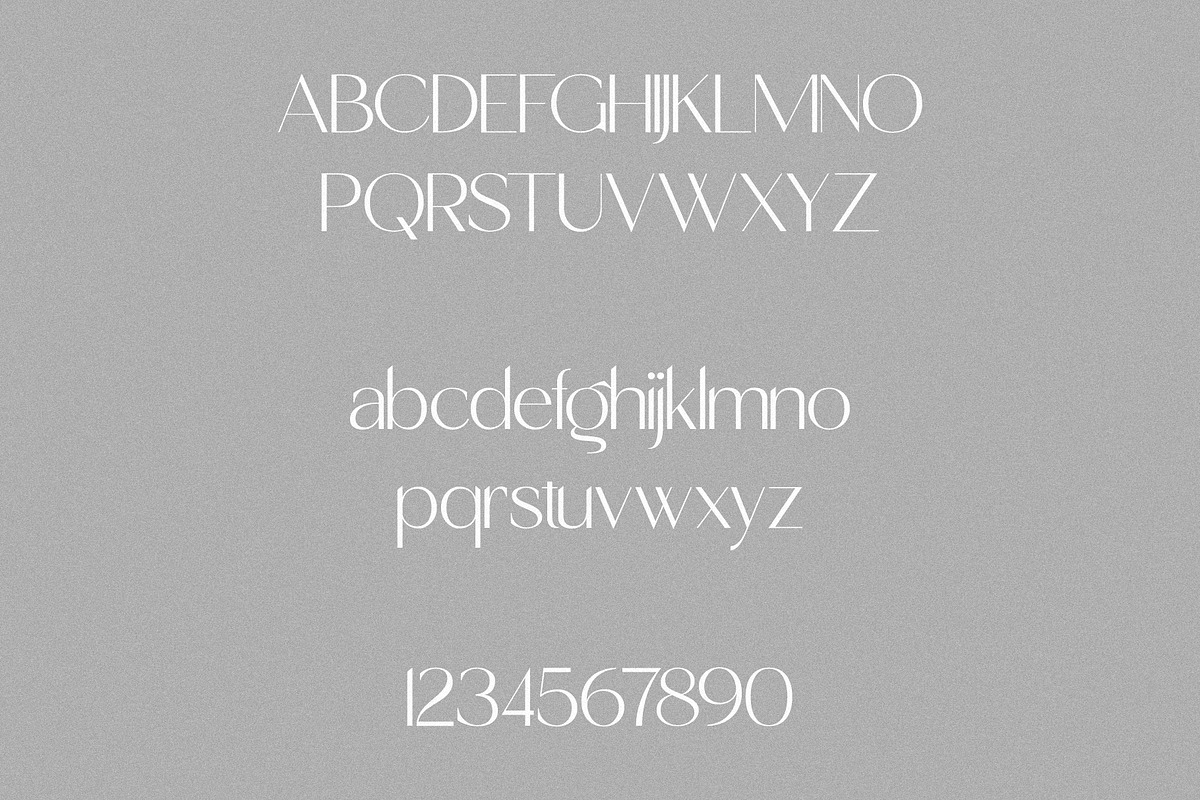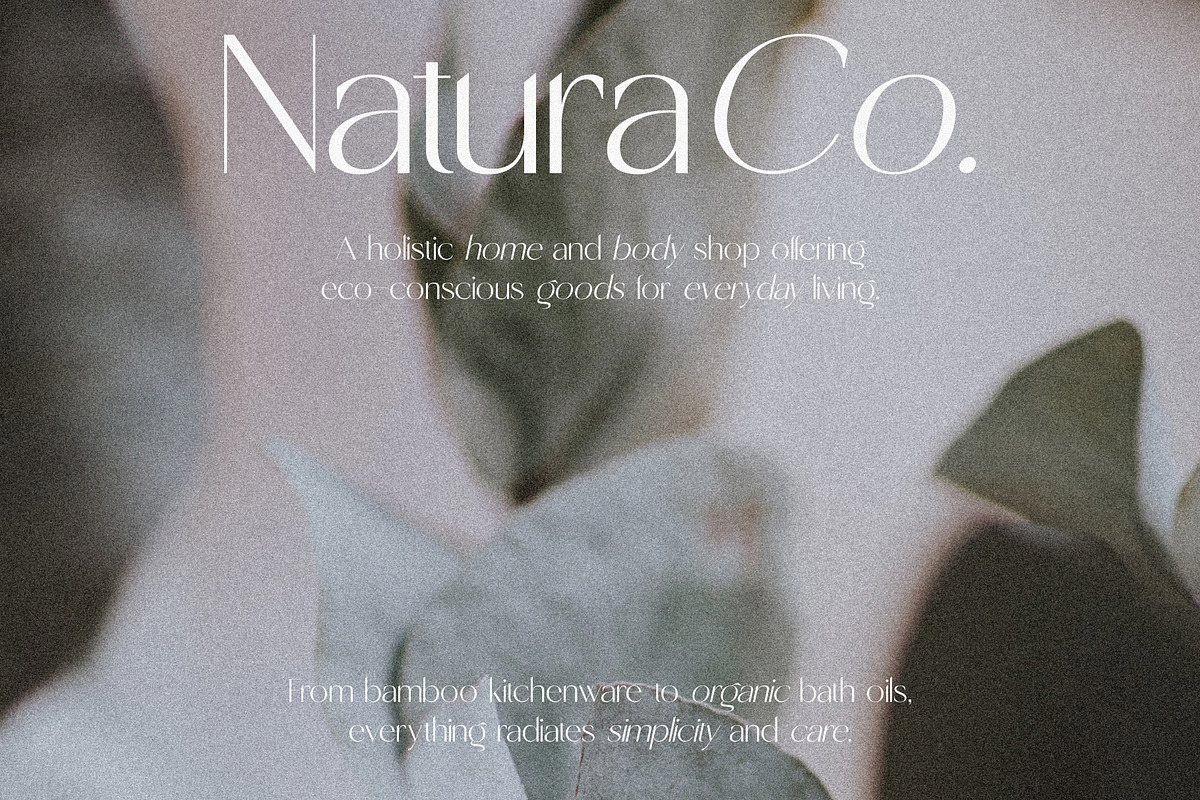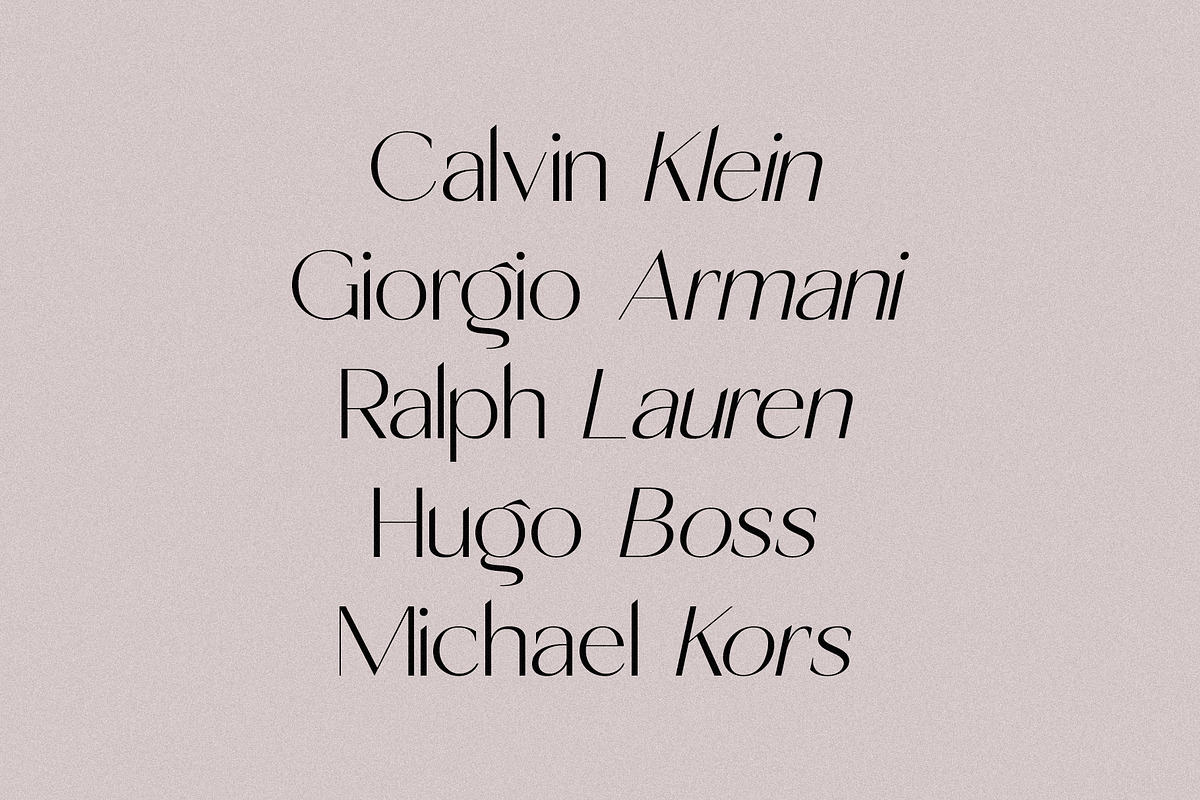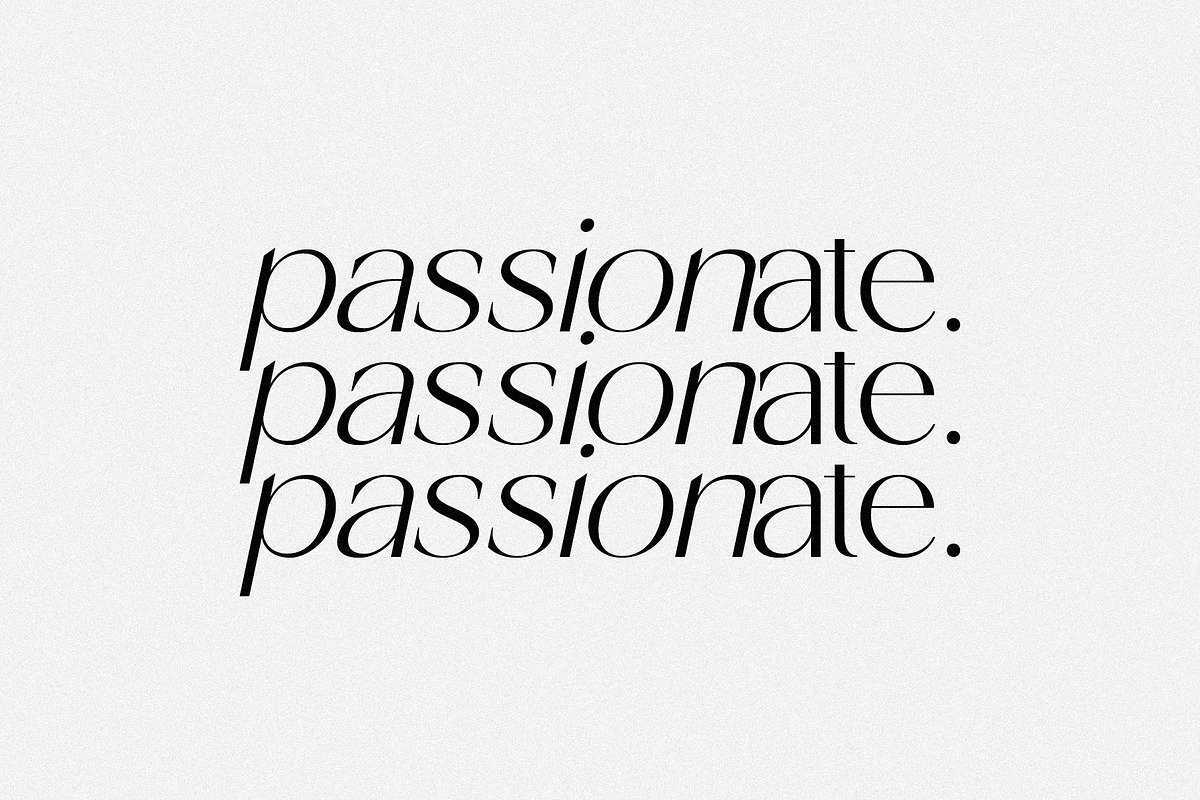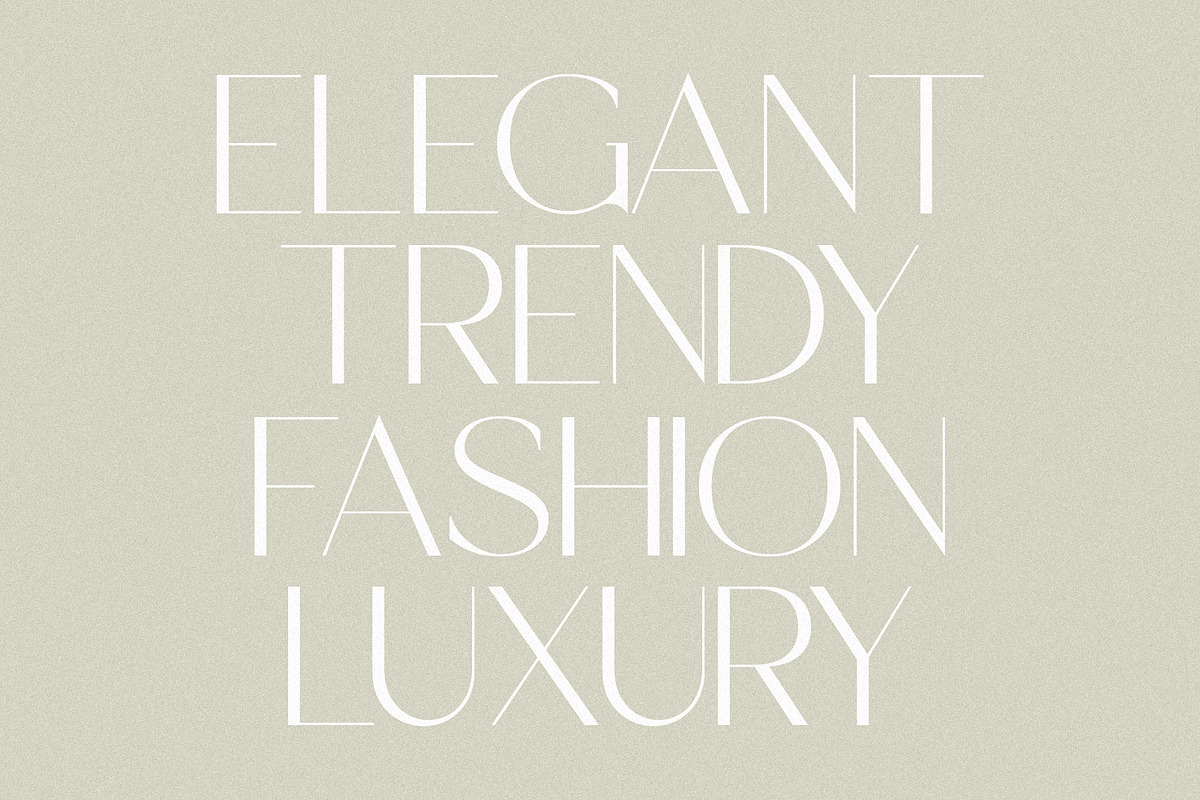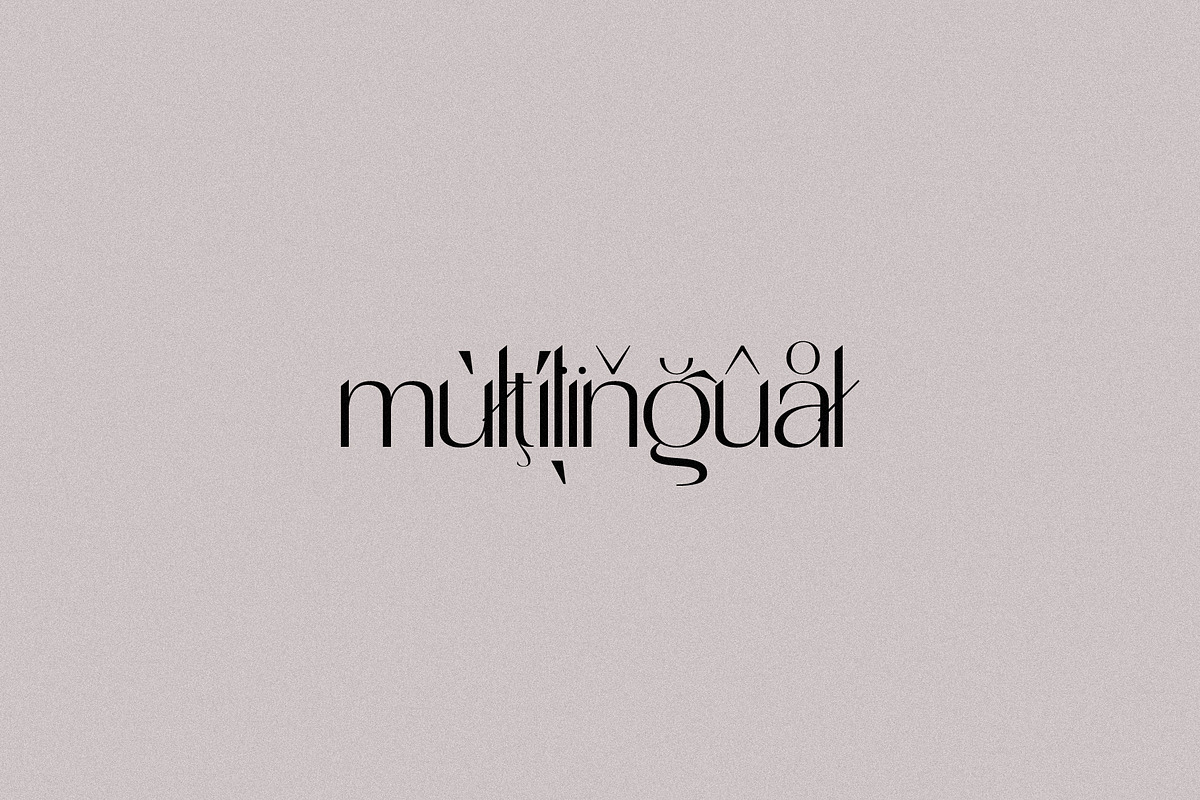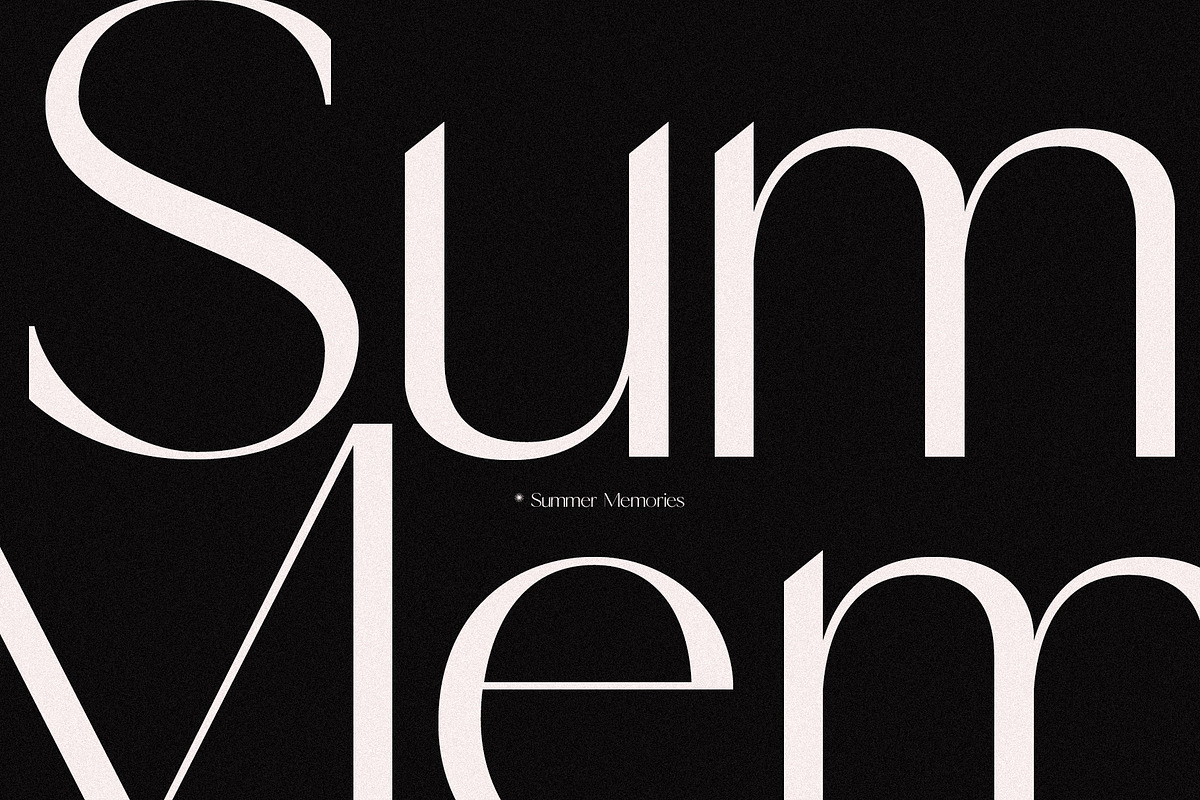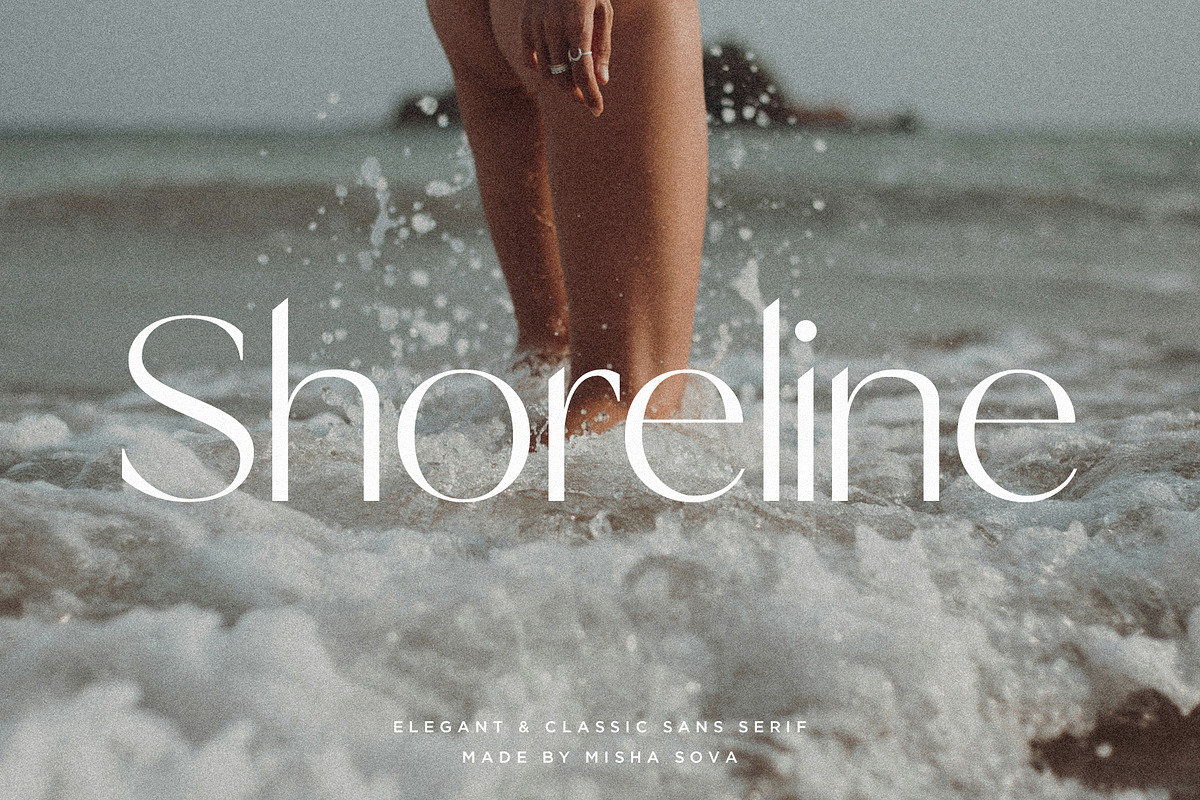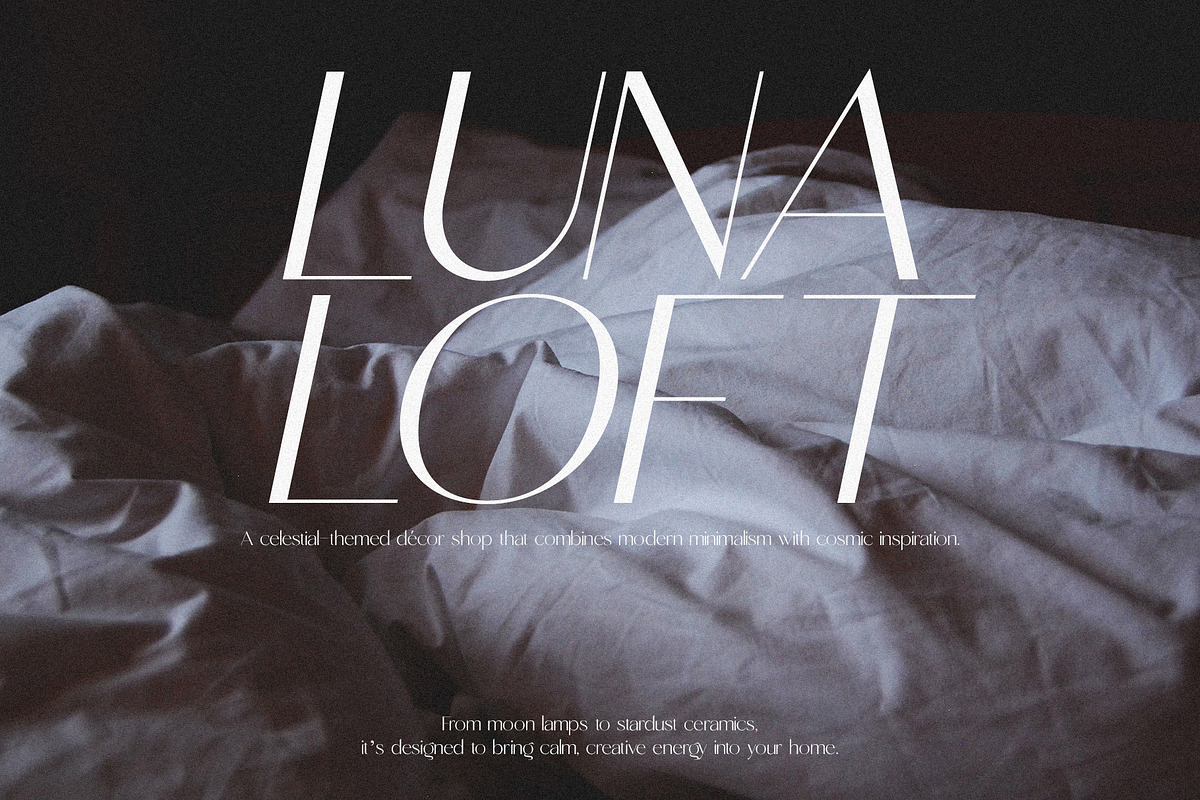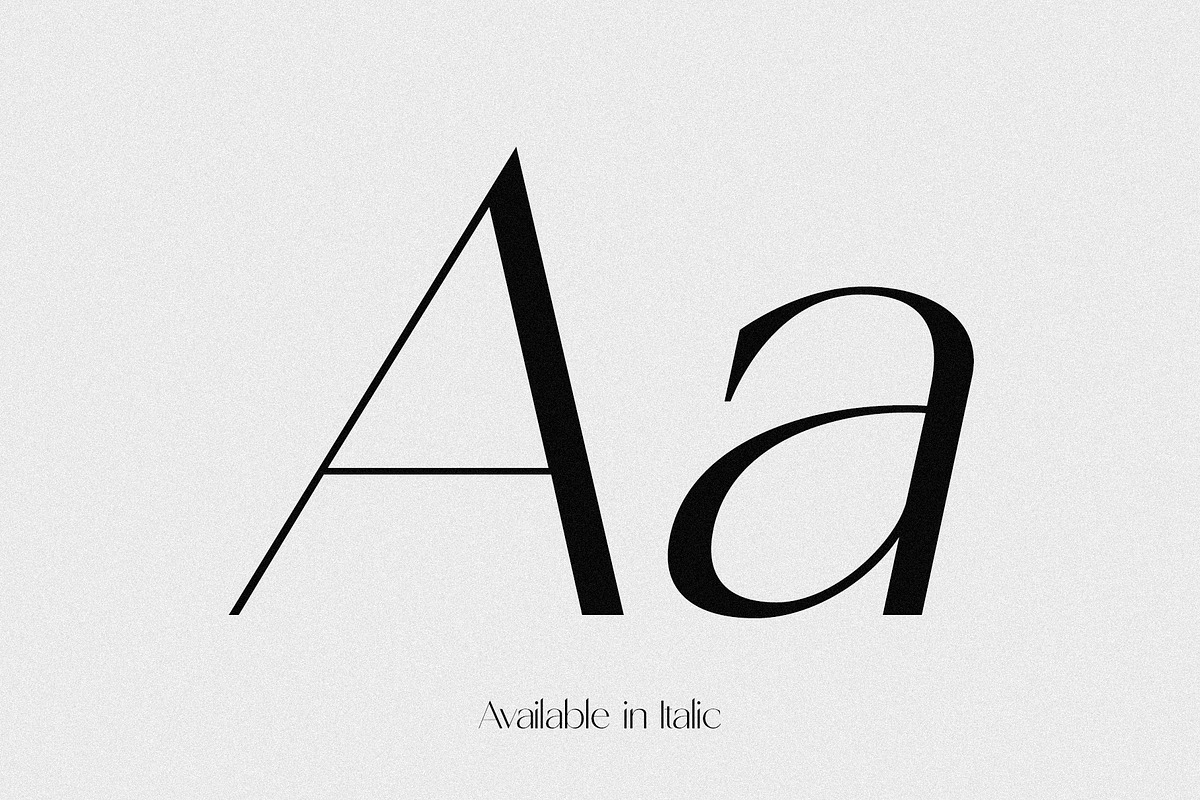
Shoreline - Classical Sans Serif Duo
Shoreline - Classical Sans Serif Duo by Misha Sova
Introducing Shoreline Sans, a refined sans-serif duo that blends timeless classical elegance with modern minimalism. Designed for creators who value sophistication and versatility, Shoreline Sans pairs a clean primary typeface with a graceful companion style - perfect for crafting elevated branding, editorial layouts, luxury packaging, and refined digital designs.
With its smooth contours, balanced proportions, and subtle character, Shoreline Sans brings a sense of calm, clarity, and craftsmanship to every project. Whether you're shaping a high-end logo, designing thoughtful social media content, or building atmospheric print pieces, this duo offers the harmony and flexibility needed to create a truly polished visual identity.